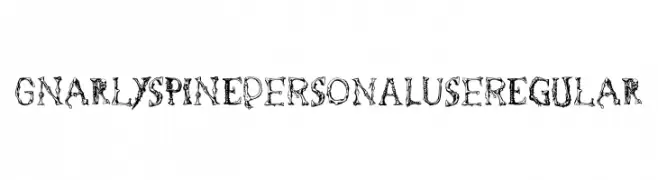
A bold, decorative font with a twisted, organic design and spine-like details.
A chaotic, vine-like decorative font with jagged, intricate strokes.
A bold, chaotic decorative font with jagged, swirling shapes.